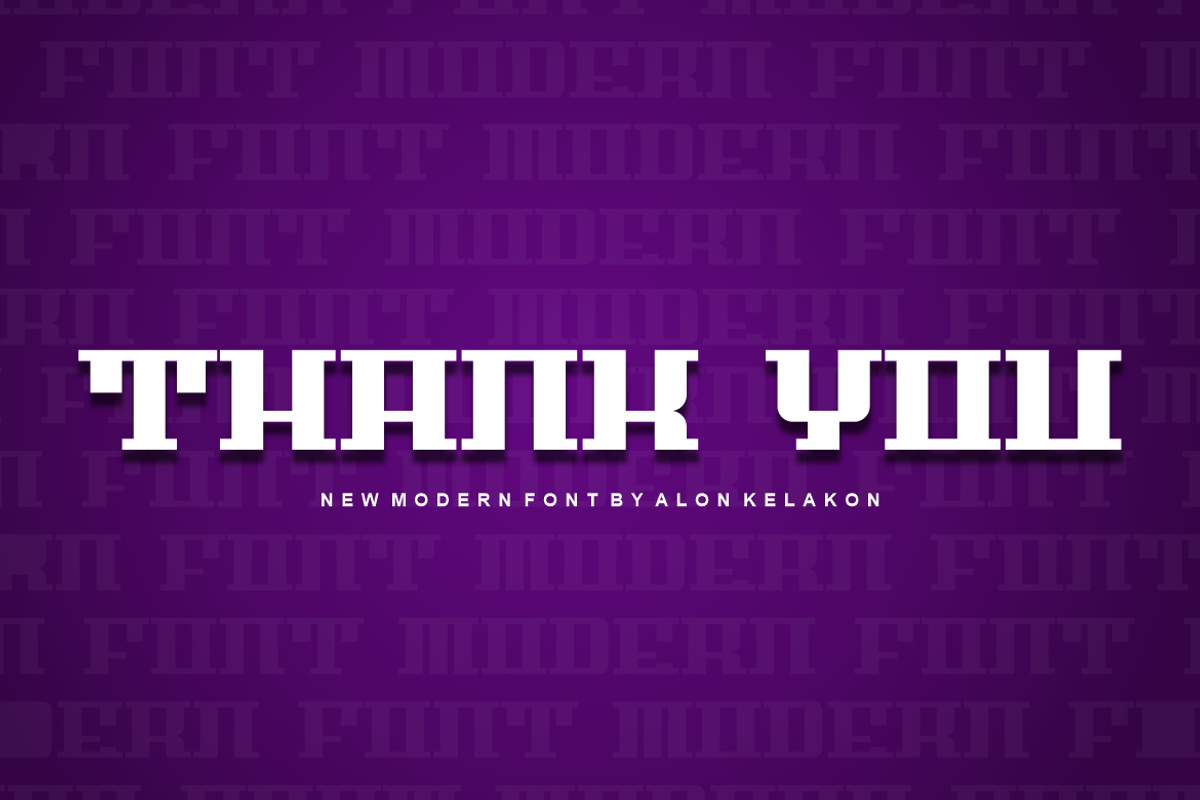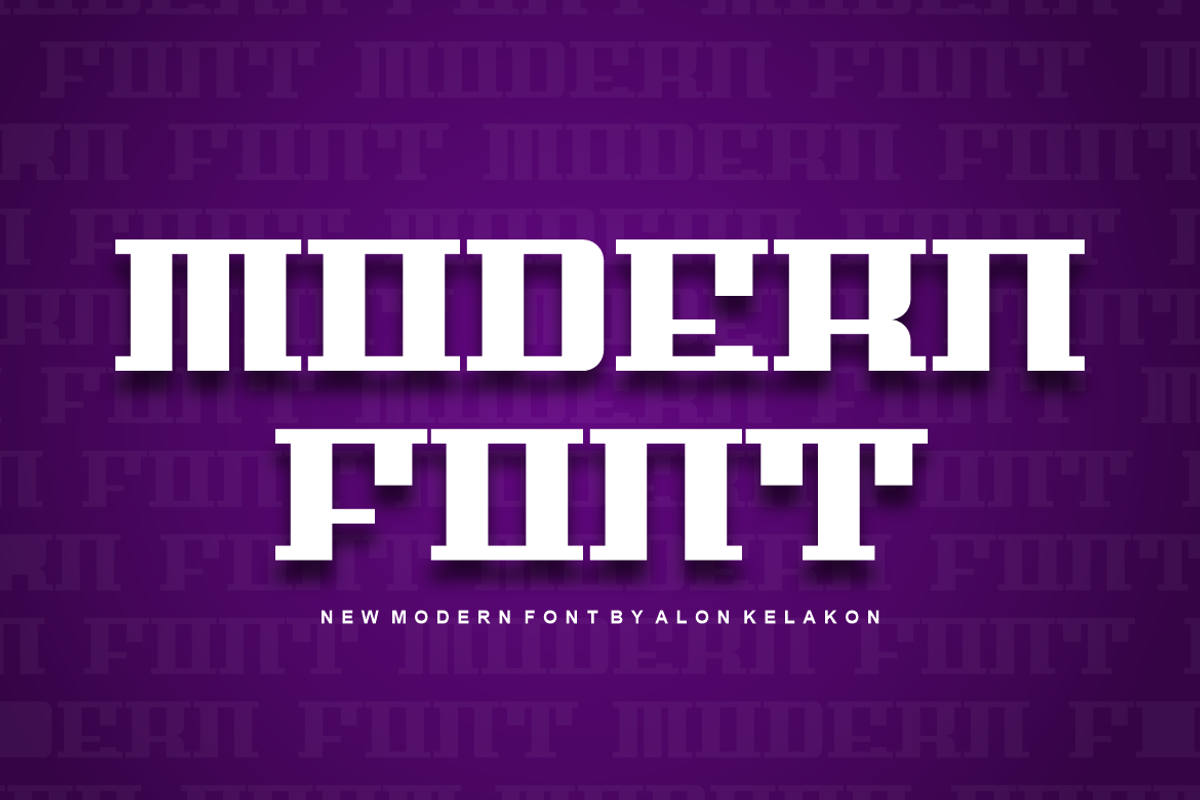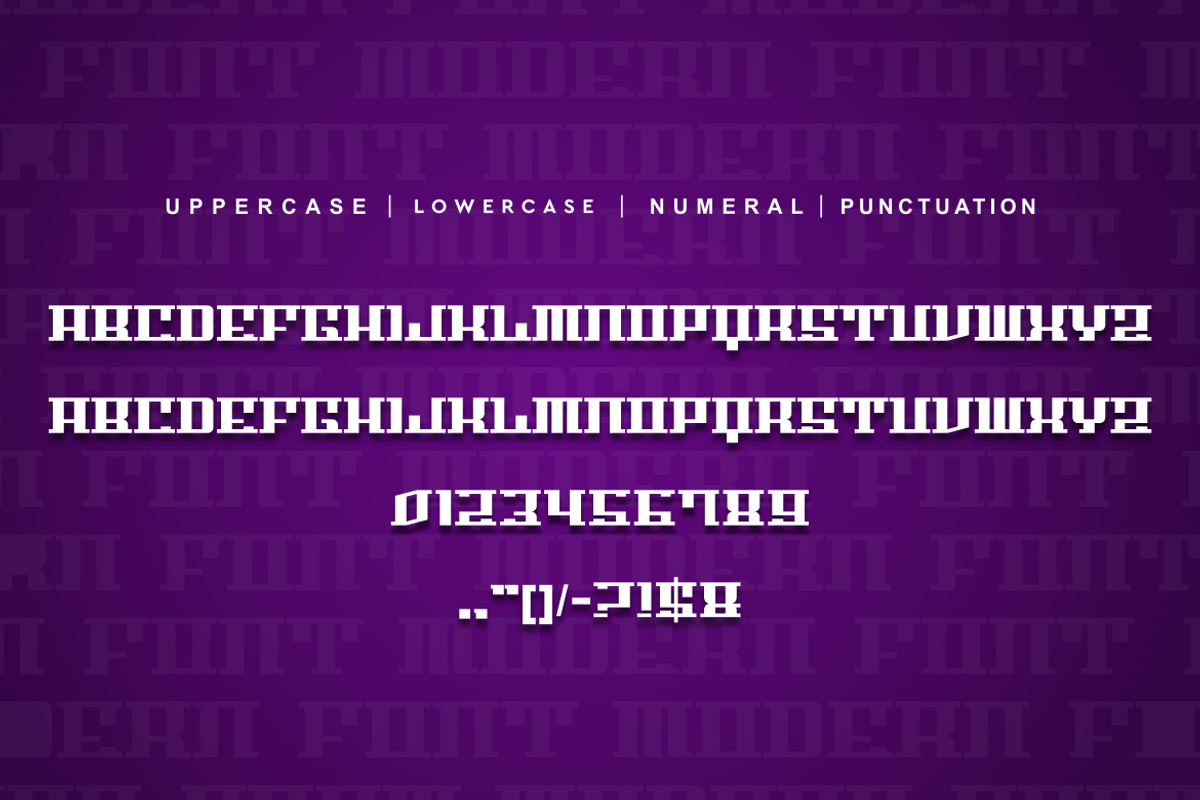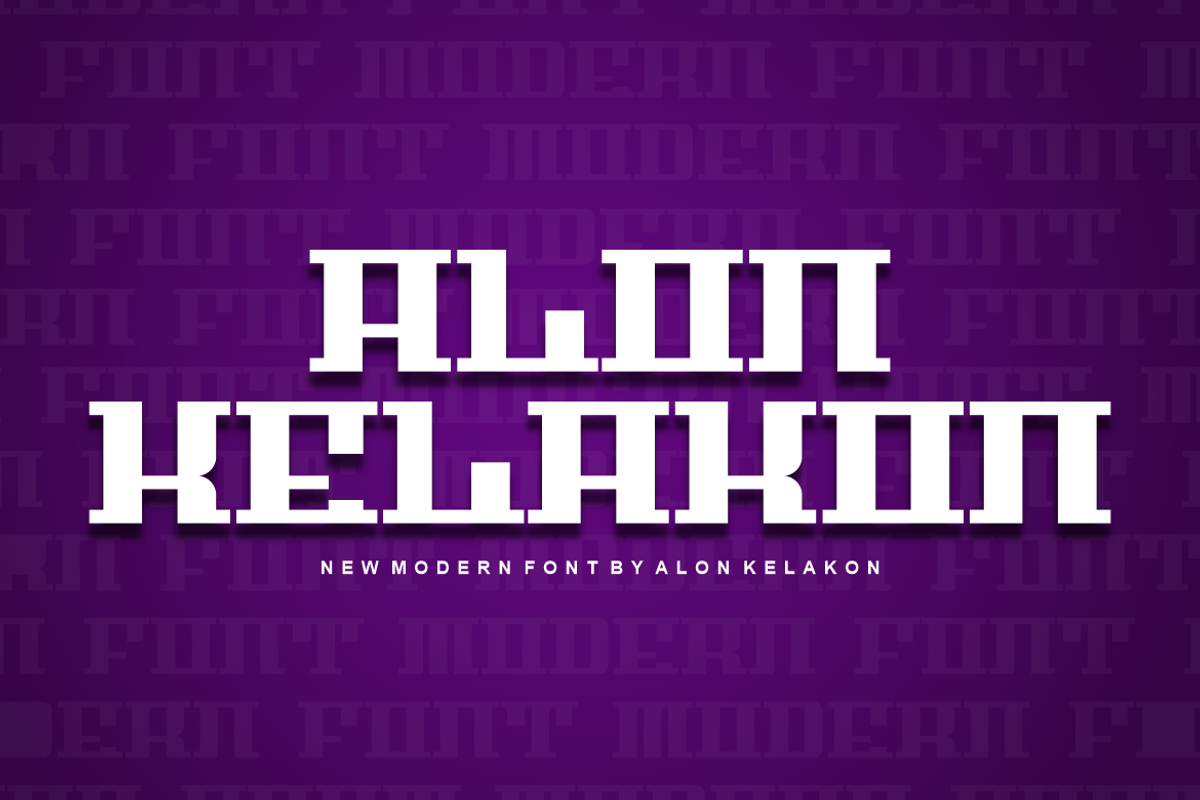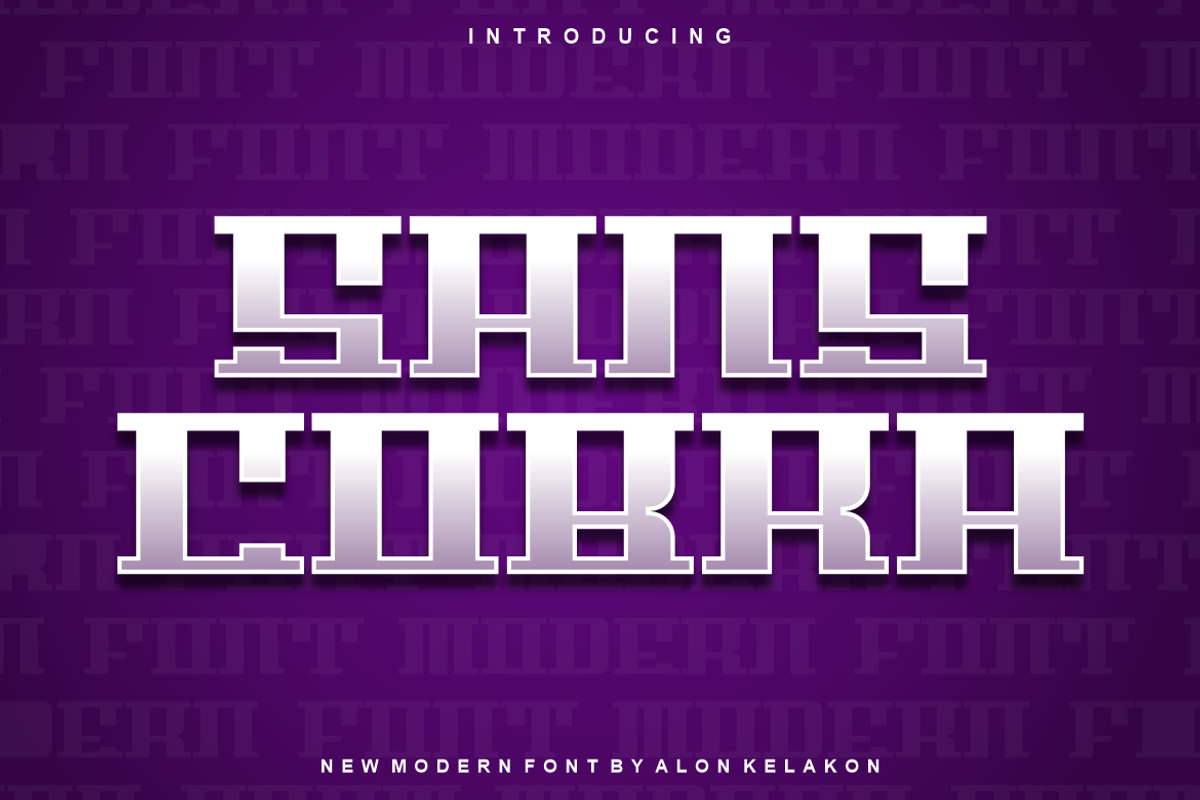
Sans Cobra Font
Sans Cobra Font Font is unique . Ready to use for your design like labeling, clothing, movie sceen, poster, movie title, gigs, album covers, logos, and much more.